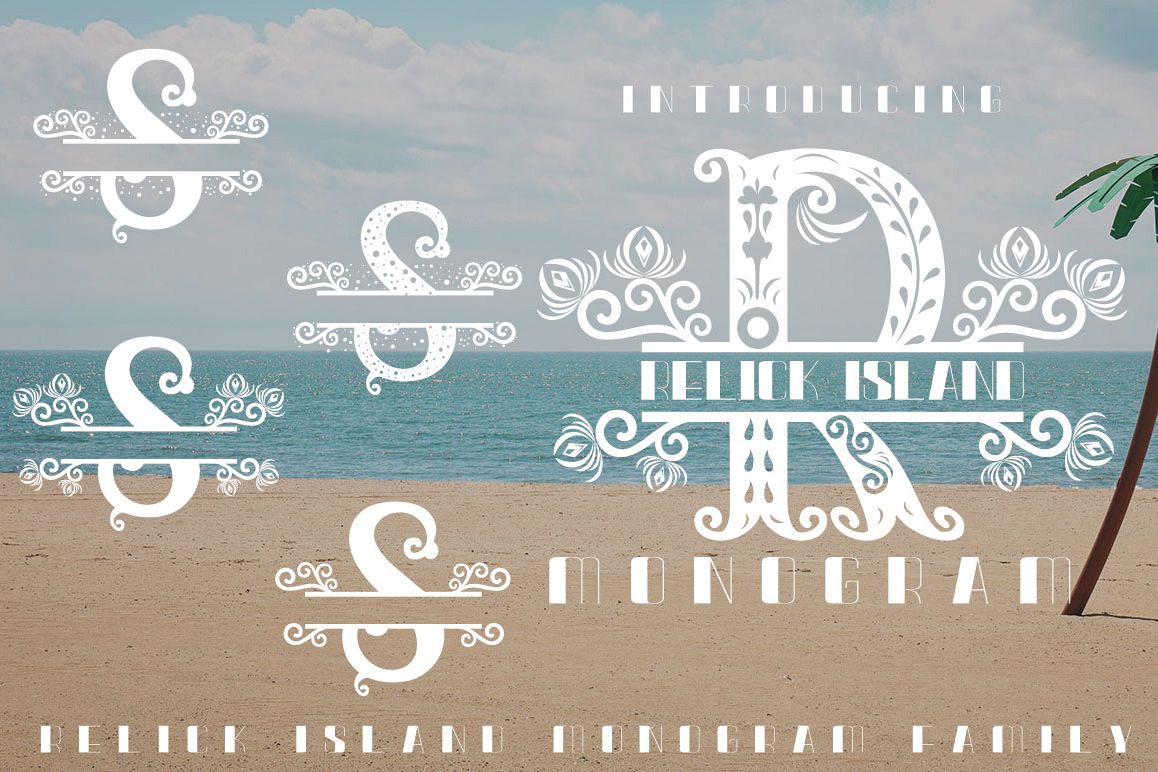
RELICK ISLAND MONOGRAM
RELIC ISLAND MONOGRAM This font was designed by handwriting, and it has a modern
and unique forms of calligraphy, the writing style is very natural and multiple
language support.